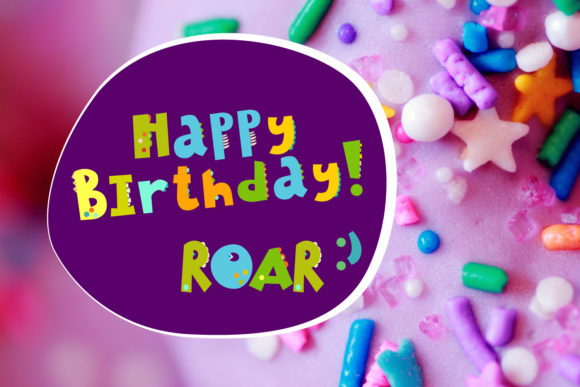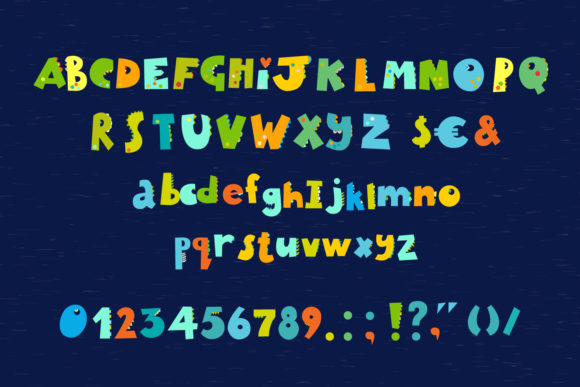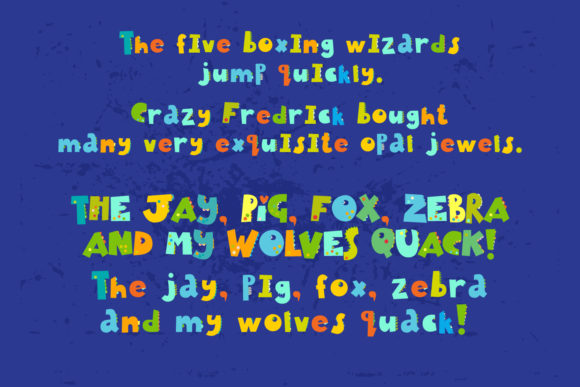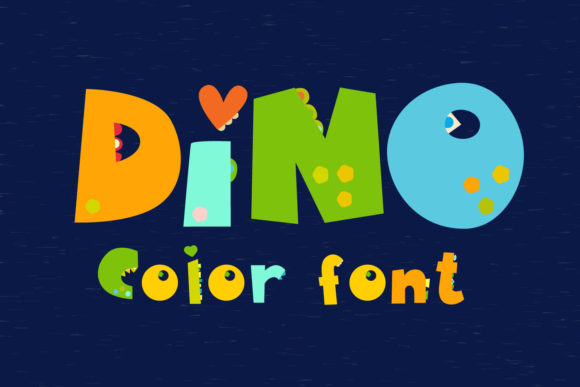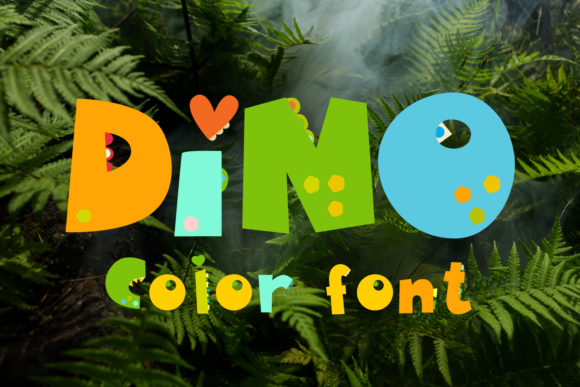
Dino Font: The Perfect Choice for Children-Themed Designs
Are you looking for a font that can add a touch of playfulness and fun to your designs? Look no further than the Dino Font! This incredibly cute and thick lettered display font is perfect for children-themed designs, especially when combined with bright colors.
What is Dino Font?
Dino Font is a unique and charming display font that features thick, bold letters with a prehistoric twist. The font is designed to resemble the playful and adventurous spirit of dinosaurs, making it an ideal choice for designs aimed at kids.
The font’s chunky letters are carefully crafted to be easily readable, making it perfect for headlines, titles, and short phrases. The font’s friendly and approachable feel makes it an excellent choice for a wide range of design projects, from children’s books and educational materials to posters, flyers, and more.
Key Features of Dino Font
- Thick and bold letters: The font features thick, sturdy letters that are perfect for creating eye-catching headlines and titles.
- Playful and adventurous feel: The font’s prehistoric twist gives it a fun and adventurous feel that’s perfect for children-themed designs.
- Easily readable: The font’s chunky letters are carefully crafted to be easily readable, making it perfect for designs aimed at kids.
- Multilingual support: The font supports multiple languages, making it a great choice for designers working on international projects.
Why Choose Dino Font?
So, why choose Dino Font for your design projects? Here are just a few reasons:
- Perfect for children-themed designs: The font’s playful and adventurous feel makes it an ideal choice for designs aimed at kids.
- Adds a touch of fun and playfulness: The font’s bold and chunky letters add a touch of fun and playfulness to any design.
- Easily customizable: The font is easily customizable, allowing you to adjust the lettering, colors, and more to fit your design needs.
- High-quality design: The font is designed with high-quality craftsmanship, ensuring that it looks great in any design.
Design Ideas Using Dino Font
So, how can you use Dino Font in your design projects? Here are a few ideas to get you started:
- Children’s books and educational materials: Use Dino Font to create engaging and fun titles and headlines for children’s books and educational materials.
- Posters and flyers: Use the font to create eye-catching posters and flyers for kids’ events, parties, and activities.
- Branding and logos: Use Dino Font to create fun and playful logos and branding materials for kids’ products and services.
- Social media graphics: Use the font to create fun and engaging social media graphics for kids’ brands and products.
Tips for Using Dino Font
Here are a few tips for using Dino Font in your design projects:
- Combine with bright colors: Combine the font with bright colors to create a fun and playful design.
- Use for headlines and titles: Use the font for headlines and titles to add a touch of fun and playfulness to your design.
- Experiment with different lettering styles: Experiment with different lettering styles and combinations to create a unique look.
- Pair with simple backgrounds: Pair the font with simple backgrounds to create a clean and visually appealing design.
In conclusion, Dino Font is a unique and charming display font that’s perfect for children-themed designs. With its thick and bold letters, playful and adventurous feel, and easily readable design, it’s an ideal choice for designers looking to add a touch of fun and playfulness to their projects. Whether you’re designing children’s books, posters, or social media graphics, Dino Font is sure to make your designs stand out.